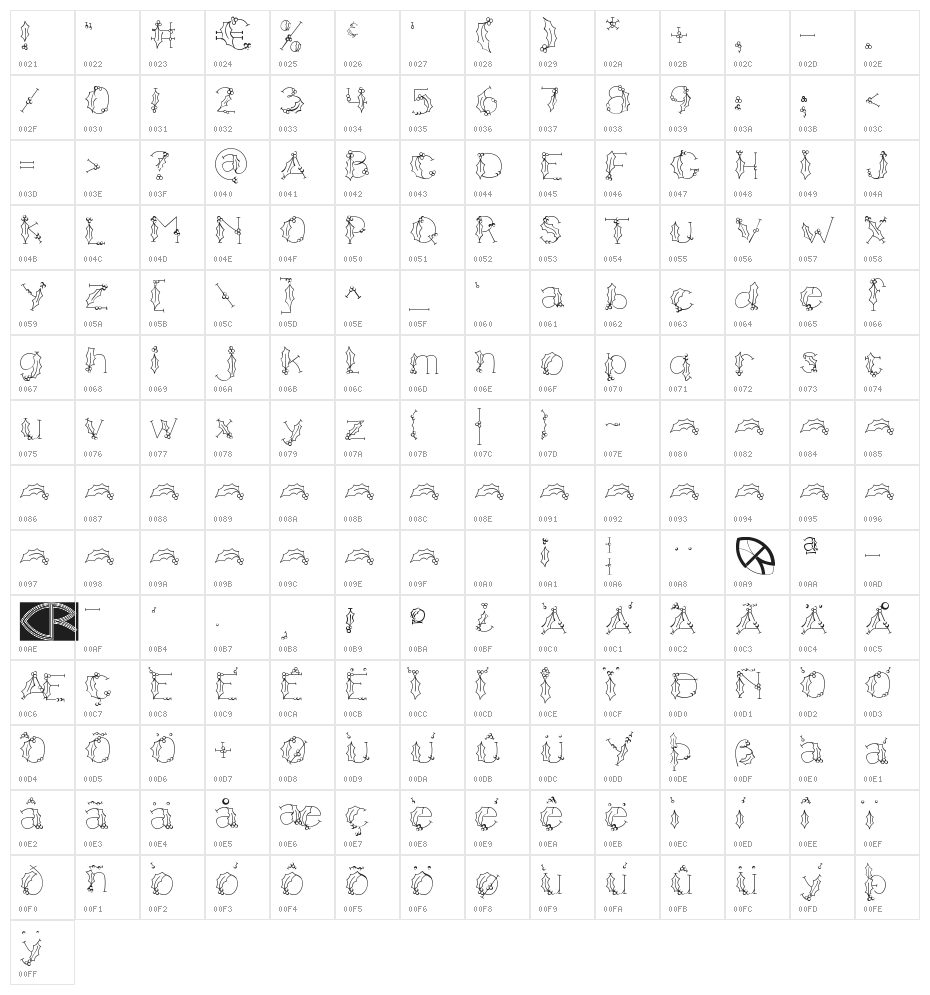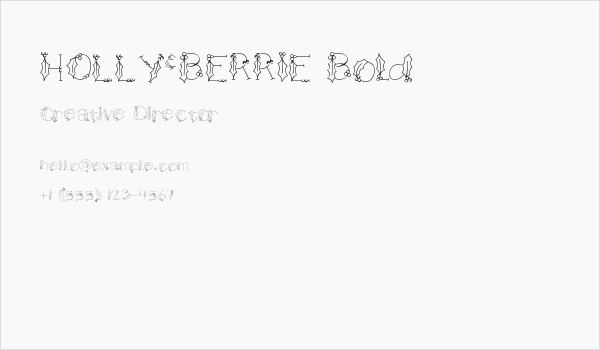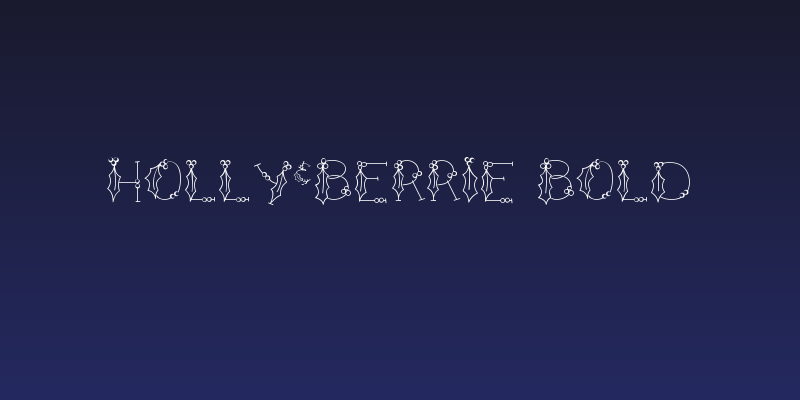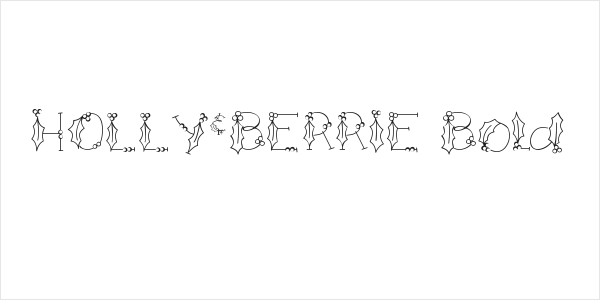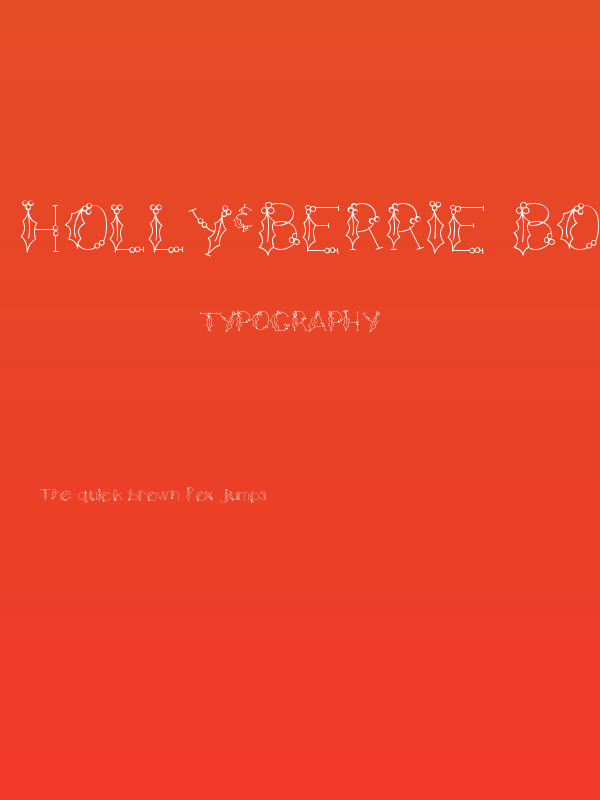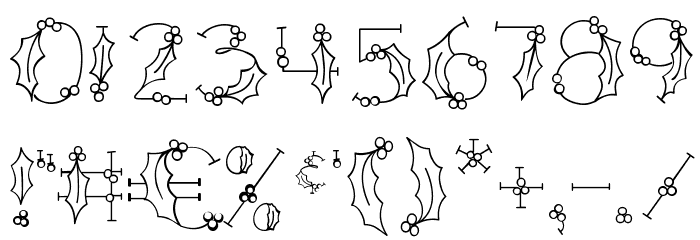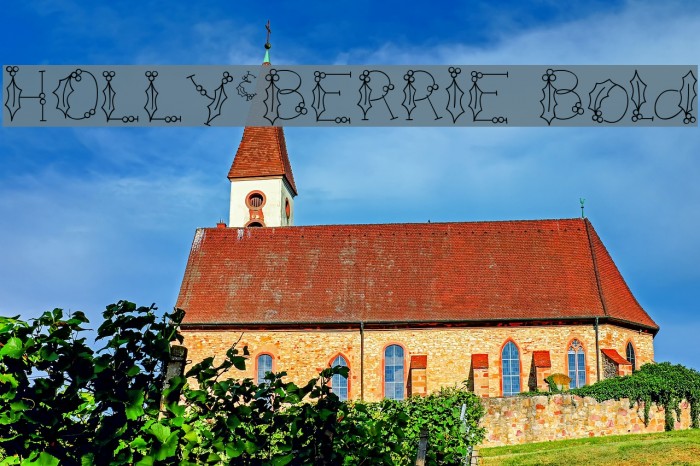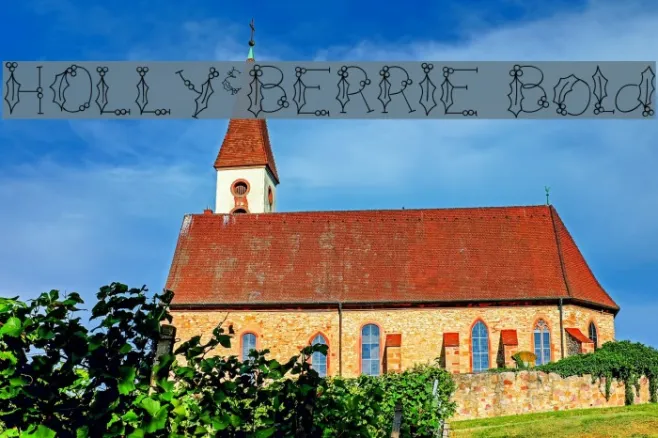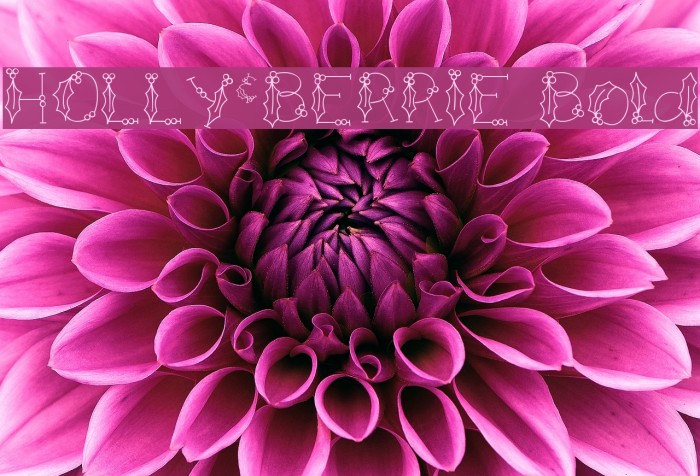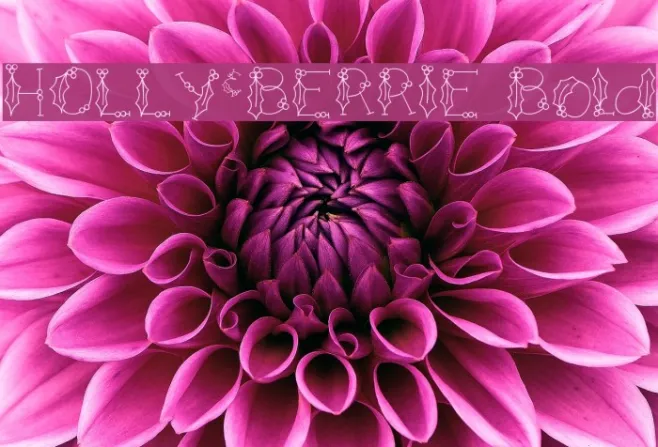
HOLLY&BERRIE Bold Font
HOLLY&BERRIE Bold Description
This font features a whimsical and festive design, incorporating holly leaves and berries into the structure of each character. The letters are adorned with decorative elements that evoke a sense of holiday cheer and playfulness. The uppercase and lowercase letters maintain a consistent theme, with intricate detailing that adds a unique flair to the overall appearance. The numbers and special characters are similarly styled, ensuring a cohesive look across all elements. This font is perfect for projects that require a touch of holiday spirit and creativity.
| Proposed Projects | Ideal for holiday cards, festive invitations, seasonal branding, and decorative posters. |